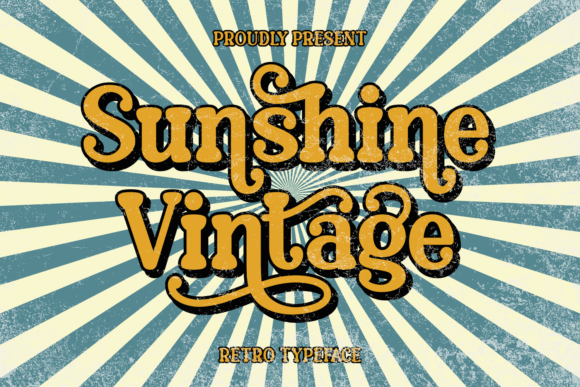
Step into a realm where joy dances on every letter, and warmth radiates from every word – Introducing Sunshine Vintage Font! This enchanting script font, meticulously crafted by Rydmaker (7NTypes), is a captivating dance of curves and strokes, evoking a sense of playful nostalgia and heartfelt charm.
Whether you're a seasoned designer seeking a touch of whimsy, a small business owner craving a unique brand identity, or a creative soul yearning for an expressive outlet, Sunshine Vintage Font is your perfect companion. Its childlike innocence and effortless readability make it an ideal choice for greeting cards, invitations, posters, and any project that calls for a dash of lightheartedness and genuine connection.
Beyond its aesthetic appeal, Sunshine Vintage Font possesses a remarkable versatility that makes it the ultimate problem solver for your creative endeavors. It harmonizes seamlessly with both digital and physical designs, bringing life to presentations, social media graphics, and tangible crafts. Its friendly demeanor bridges the gap between generations, captivating young and old alike.
Picture a handcrafted invitation, adorned with Sunshine Vintage Font's graceful swirls, extending an irresistible invitation to a joyous celebration. Imagine a poster, splashed with vibrant hues and playful typography, drawing eyes and sparking conversations wherever it's displayed. Envision greeting cards, infused with warmth and sincerity, carrying heartfelt messages that touch the recipient's soul.
Sunshine Vintage Font is more than just a collection of characters; it's an embodiment of happiness, a visual symphony that transforms ordinary words into extraordinary expressions. It's a font that inspires smiles, ignites imaginations, and leaves an enduring impression on all who encounter it.
So, embark on a creative journey with Sunshine Vintage Font as your guide, and let your designs radiate with infectious delight. Let your creations dance with joy, and let your words spread love and laughter wherever they go.